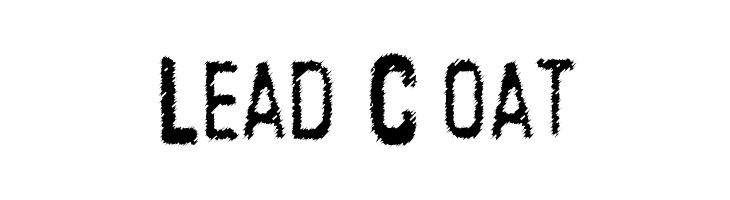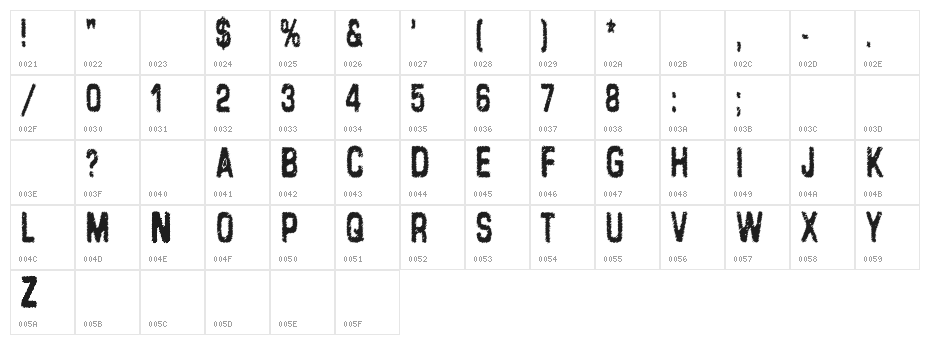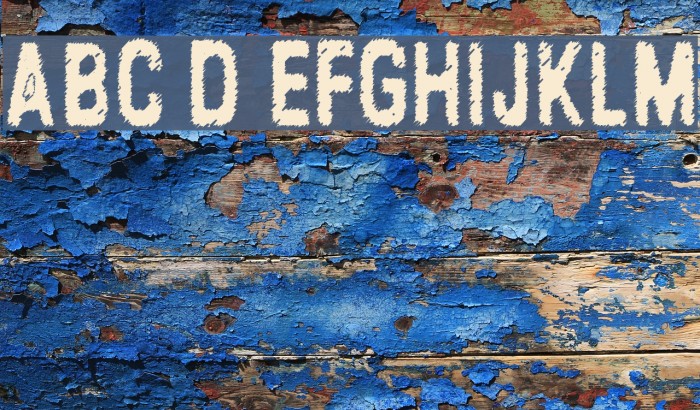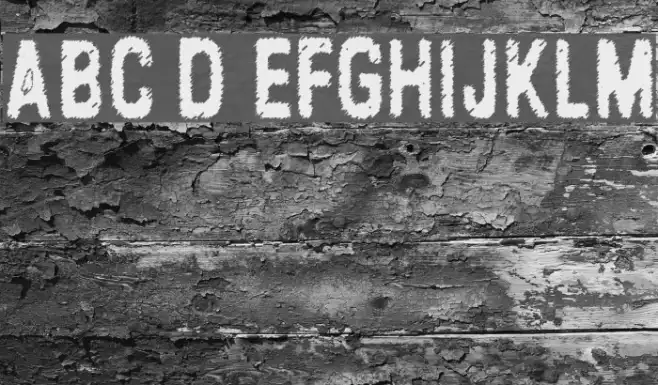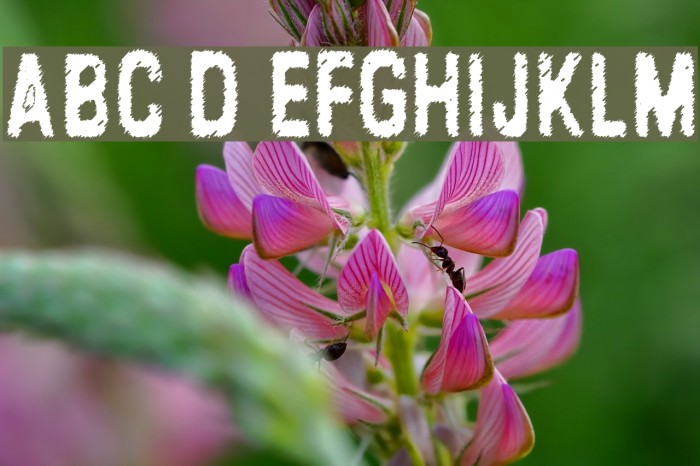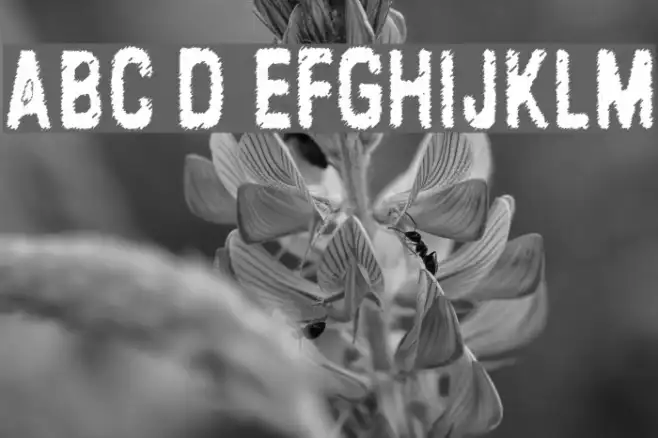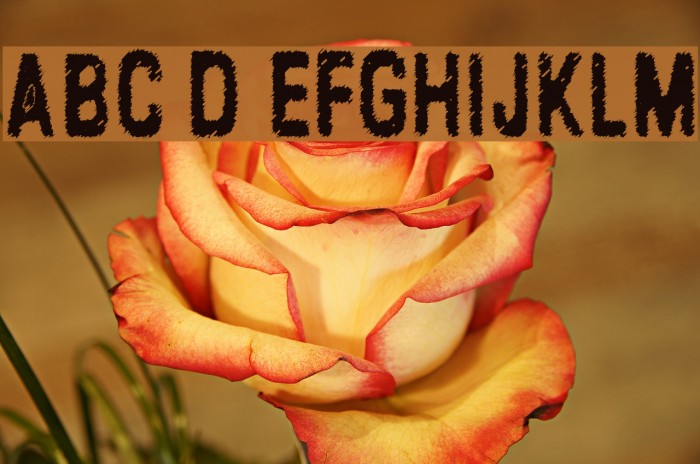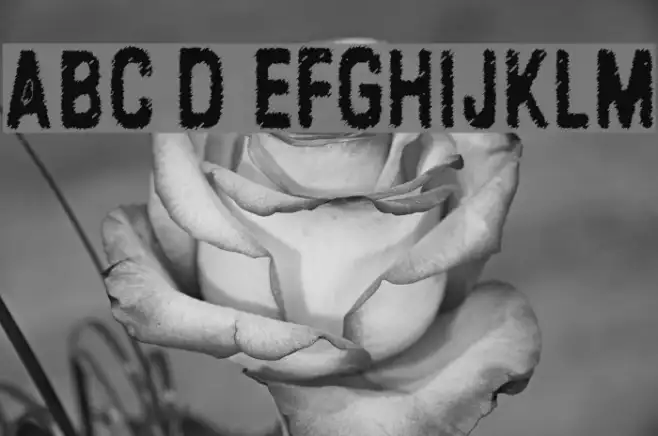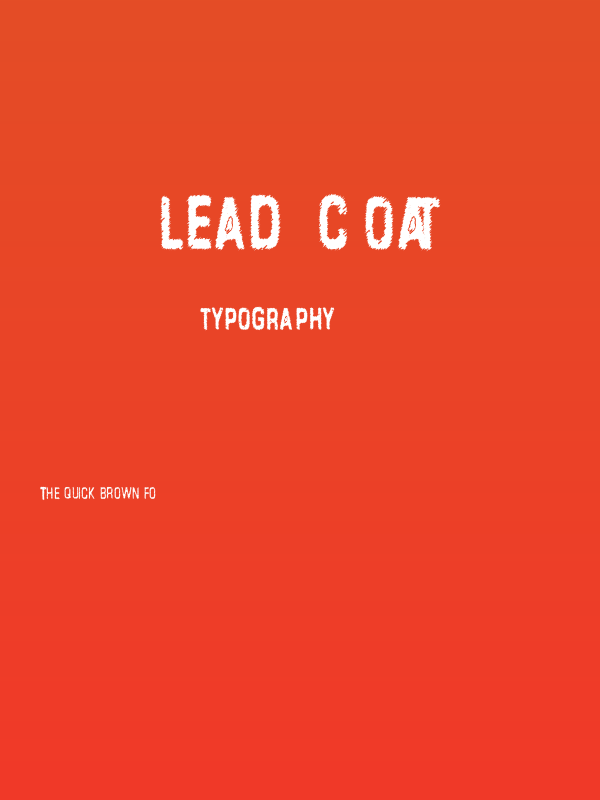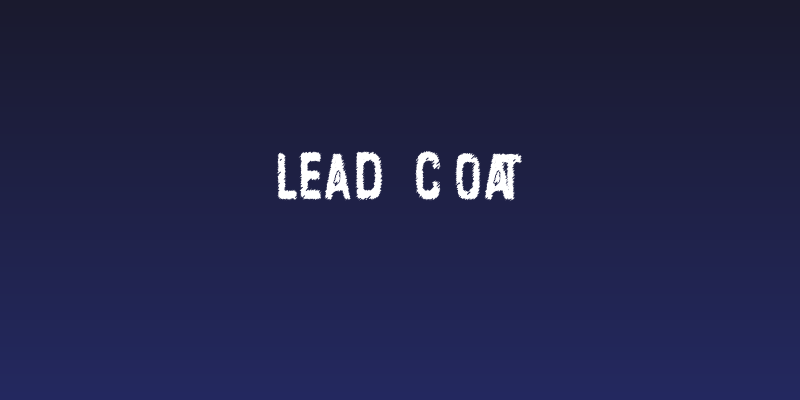
Lead Coat Font
Lead Coat Description
This font features a bold and rugged appearance, characterized by its jagged, textured edges that give it a dynamic and energetic feel. The uppercase letters are uniformly bold, with a consistent height and width, creating a strong visual impact. The texture resembles a rough, hand-drawn style, adding an element of rawness and authenticity. The font's unique design makes it stand out, suitable for projects that require a bold statement or an edgy look. Its distinct style is both eye-catching and memorable, making it ideal for creative and artistic applications.
Proposed ProjectsIdeal for posters, album covers, branding for edgy products, or any project needing a bold, artistic touch.